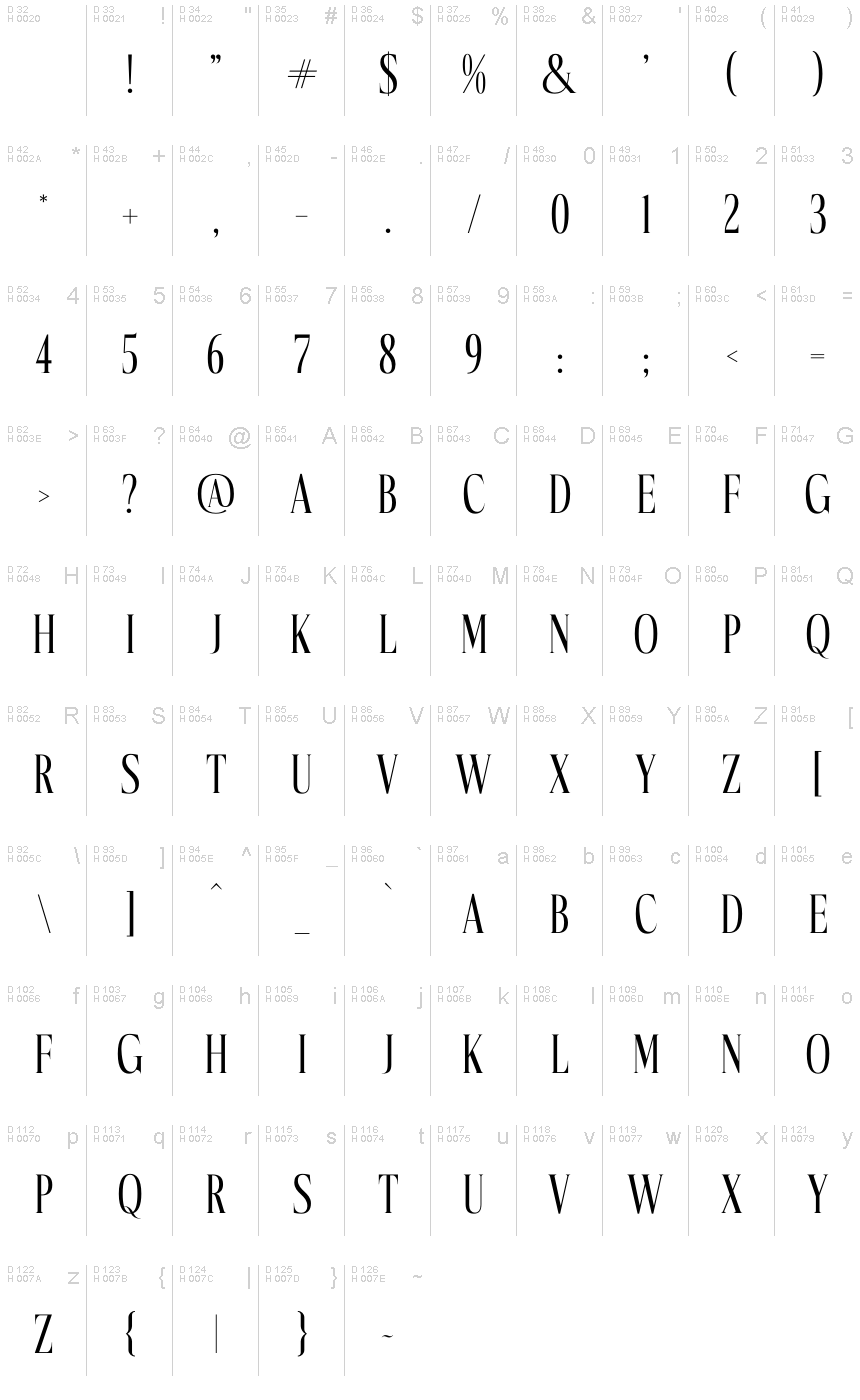
Mocnetla
Mocnetla font by Storytype Studio is a striking serif typeface that captures attention with its elegant, condensed style. Its slender and sophisticated serifs evoke a sense of classic refinement while maintaining modern versatility. The narrow design optimizes space, making it ideal for both print and digital media where clarity and impact are essential.
This condensed serif font is perfect for projects requiring a touch of luxury and tradition. Mocnetla shines in editorial layouts, branding, and packaging design, offering a polished look that impresses audiences.